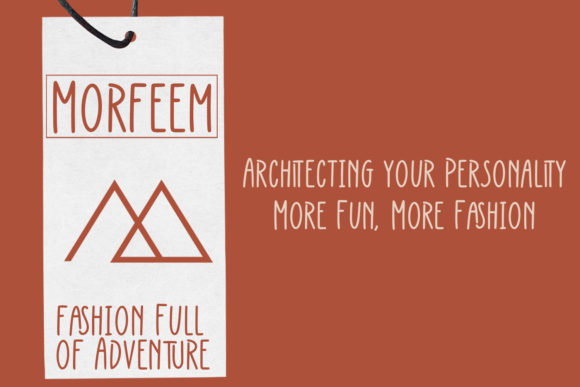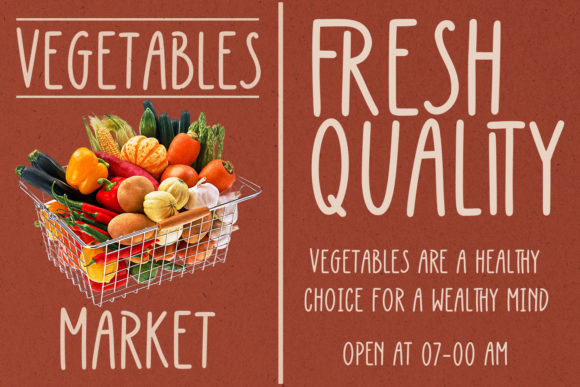
Fraksen Font
db-ku.com - Script & Handwritten -- Fraksen is a clean and natural handwritten font. It is suitable for logotype, headline font, in corporate identity, brand identity, apparel industry, poster, music, movie, game, magazine, book, comic, cartoon, YouTube, Instagram, website, or any of your creative design projects.